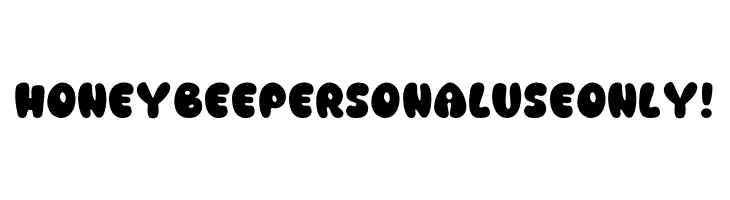
A bold, brush-style font with dynamic and expressive strokes.
A bold slab serif font with strong, block-like serifs and a vintage yet modern appeal.
A modern, geometric sans-serif font with a clean and balanced design.
A bold, rounded sans-serif font with a modern and friendly style.
A modern, rounded font with a friendly and approachable style.
A bold, ornate blackletter font with intricate Gothic details.